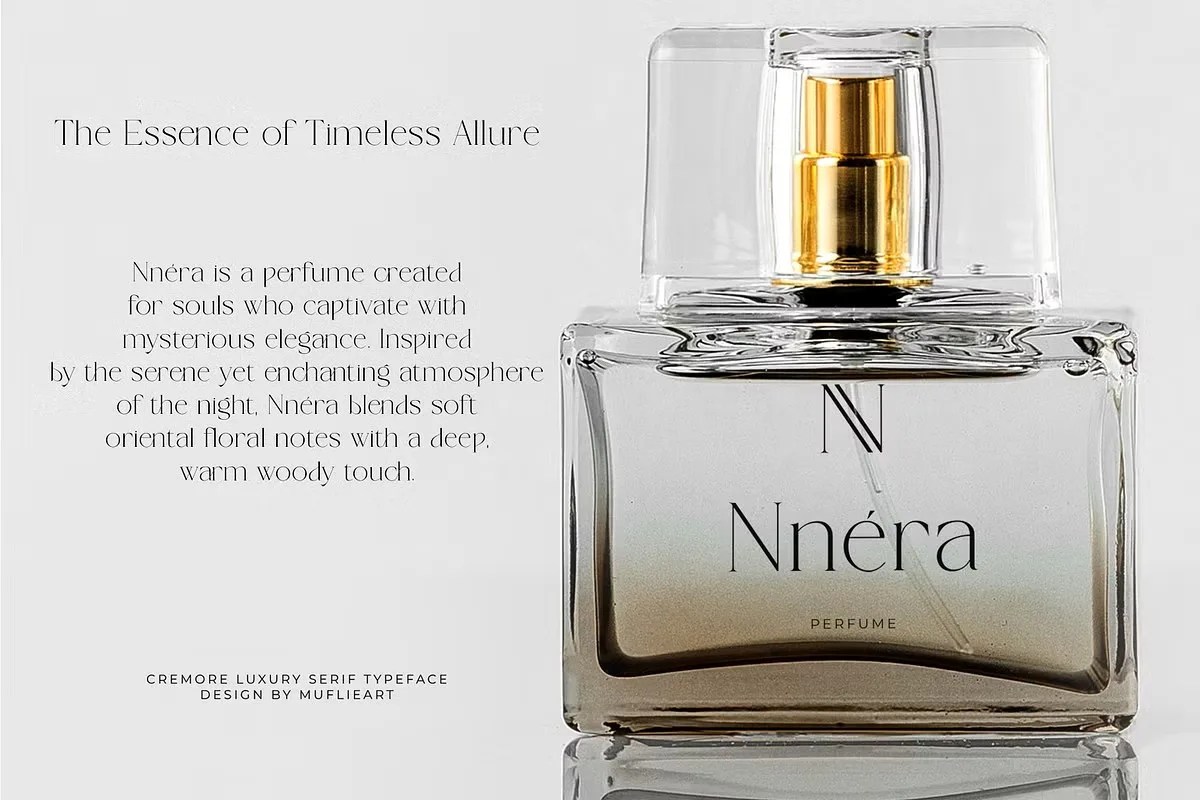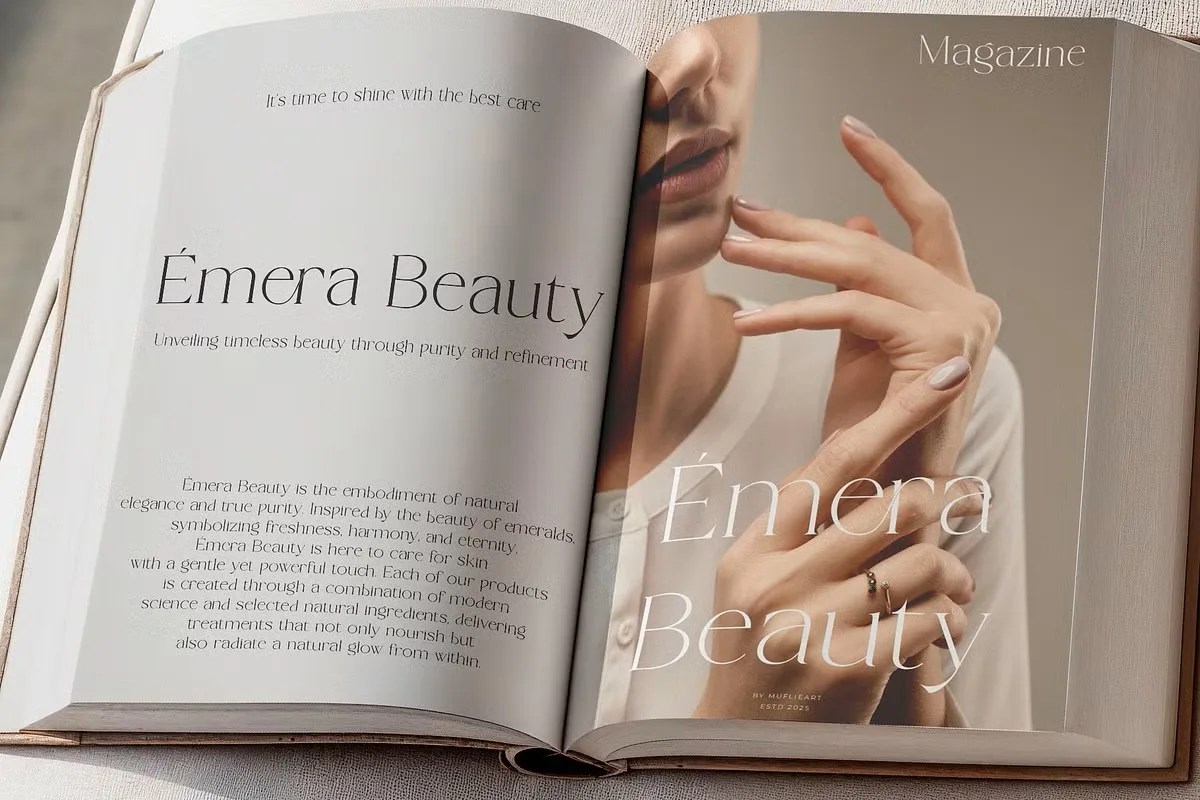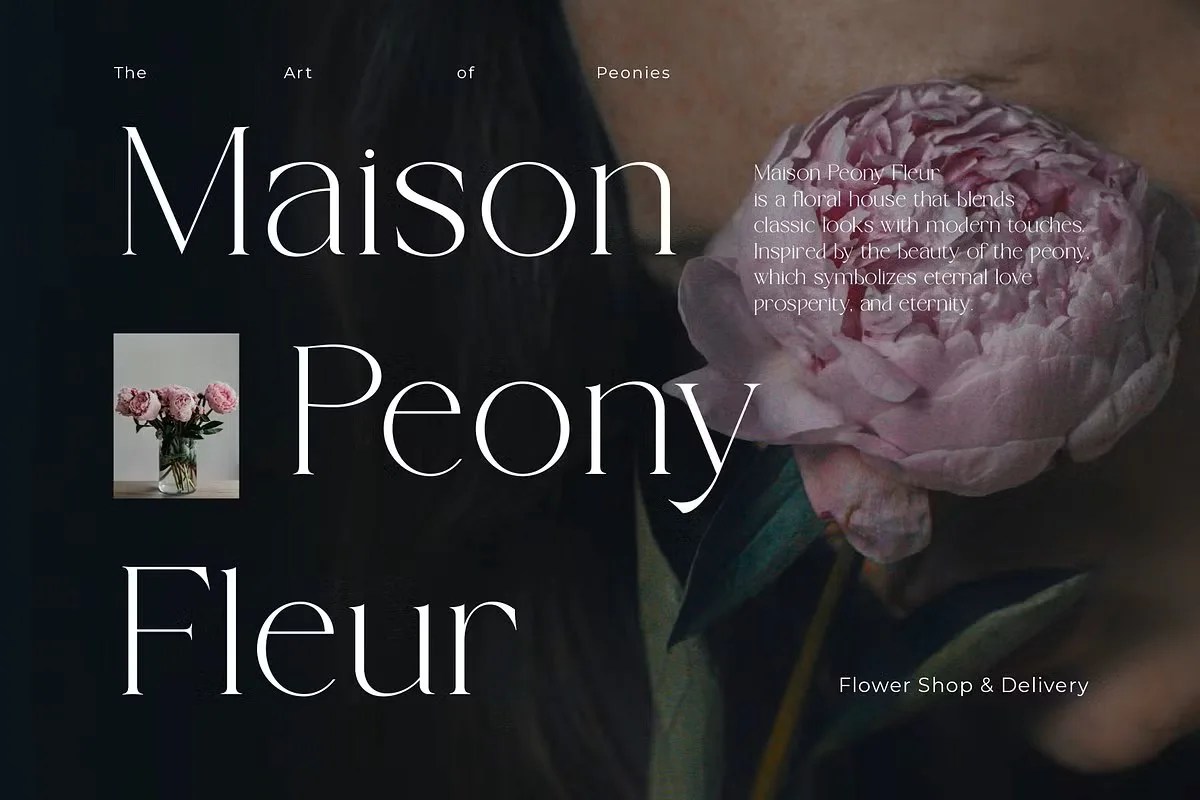
Cremore by Muflieart. It is a wonderfully smooth and elegant serif font with a gentle, luxurious appeal. This typeface flows across the page with a quiet confidence and a soft sophistication. Its beautifully crafted letterforms bring a premium and refined feel to any design they grace. Cremore is perfect for projects that require a touch of understated beauty and class, helping your work communicate quality and care.
Cremore’s design is defined by its softness and grace. For example, its serifs are subtly rounded, which skillfully avoids any harsh or abrupt edges. This design choice creates a very approachable and warm feeling for the reader. In addition, the font has a graceful and fluid transition between its thick and thin strokes. This gives it a classic, almost calligraphic touch that feels timeless. Consequently, the font feels both rooted in tradition and perfectly suited for modern, high-end aesthetics.
• Smooth and elegant serif style
• Features soft, rounded letterforms
• Ideal for luxury branding, logos, and editorial use
• Adds a sophisticated and gentle touch